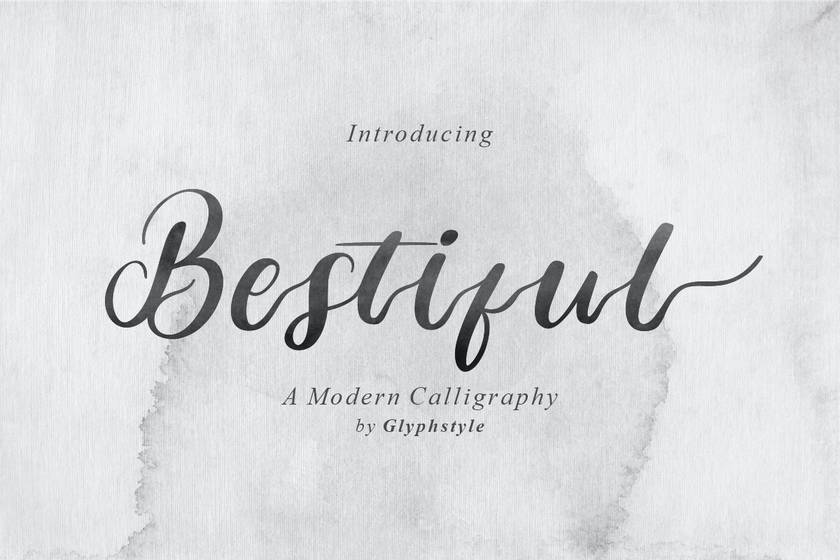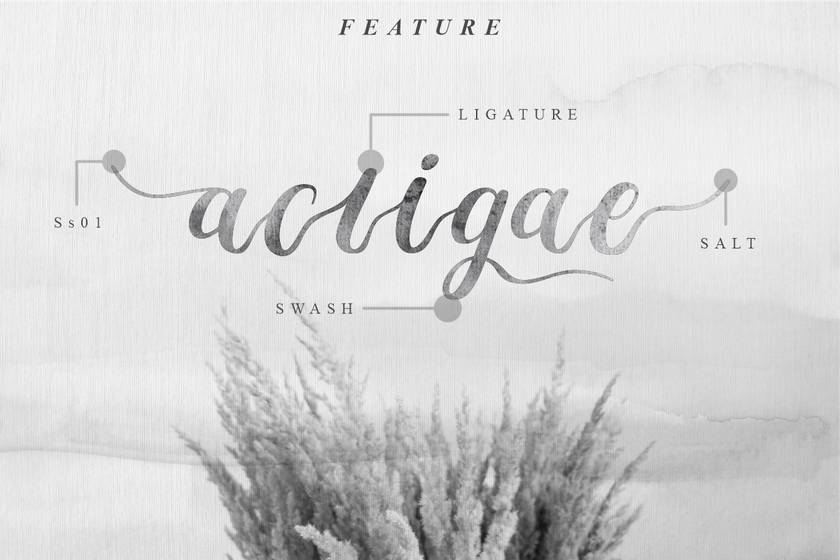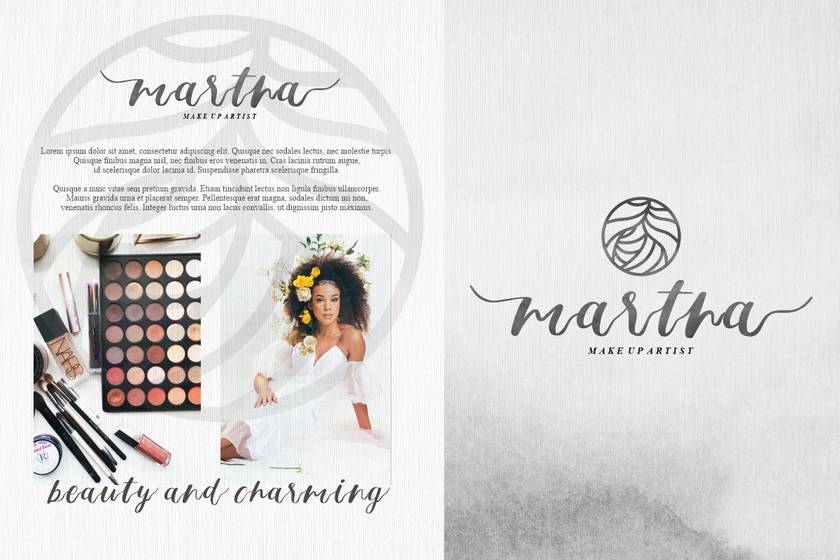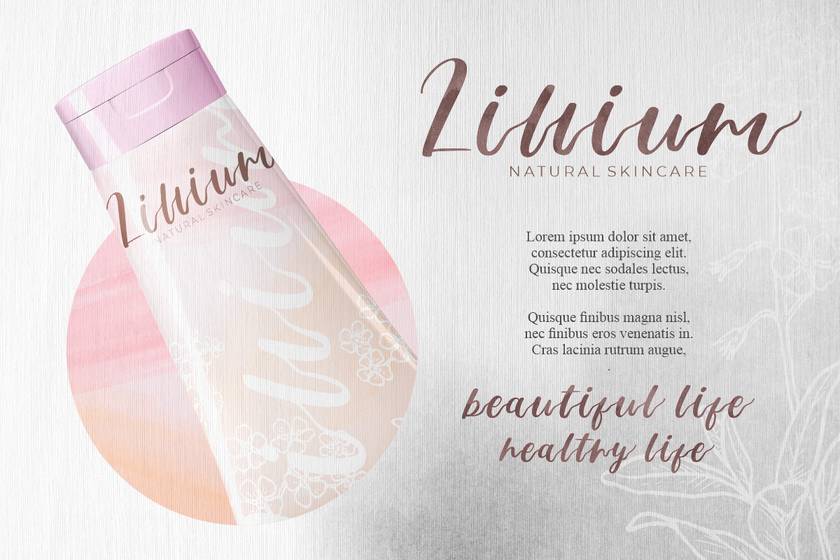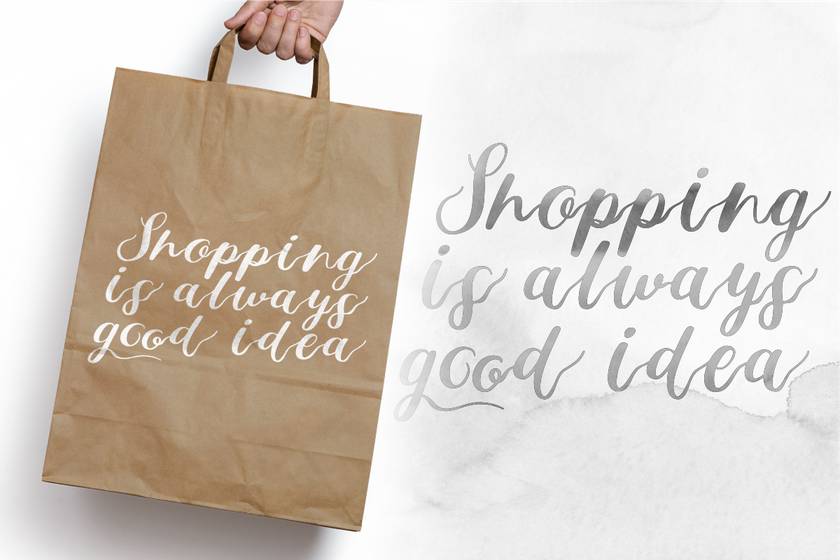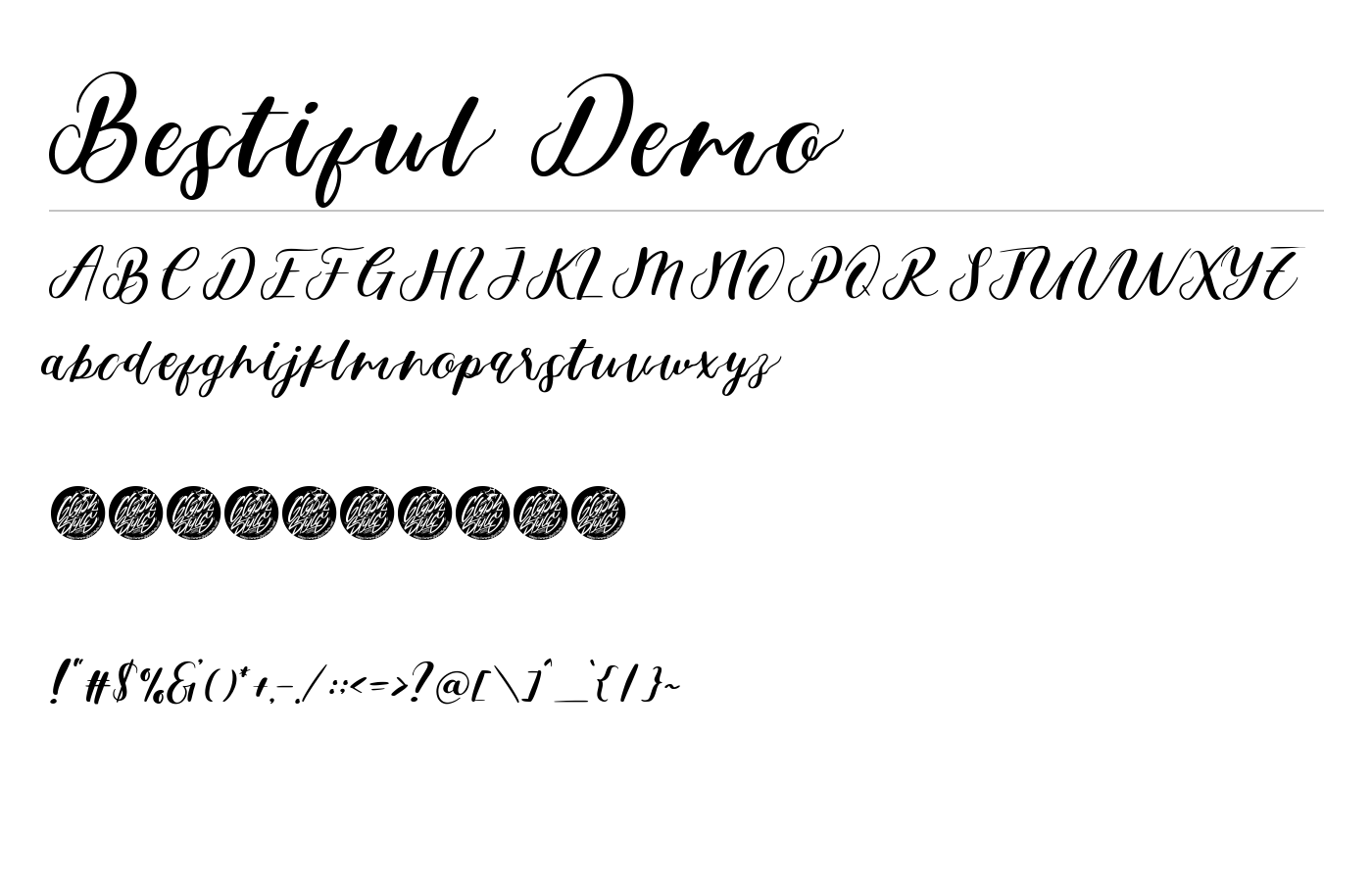
Bestiful is an elegant script font featuring fluid, brush-like strokes with a medium weight that adds a refined yet approachable charm. Its high contrast and graceful curves make it perfect for invitations, branding, and any design that wants to convey sophistication and a personal touch. This font shines best in headlines and logos where a stylish, contemporary handwritten feel is desired.
| Font family | Bestiful Font |
| Designer | GlyphStyle 2021 |